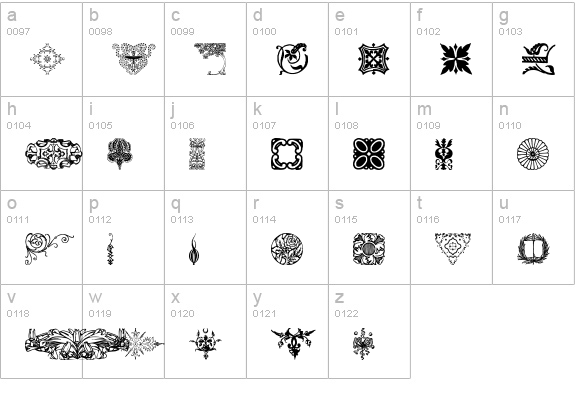
DesignerMotifs Font Details
DesignerMotifs font is a stunning and versatile typeface that is sure to elevate your design projects to new heights. This font features intricate and elegant motifs that add a touch of sophistication to any creative endeavor. With its unique and eye-catching design elements, DesignerMotifs is perfect for branding, advertising, invitations, and more. The best part? DesignerMotifs is available for free download at FontsMarket.com. That's right, you can access this exquisite font at no cost, making it a valuable addition to your font library without breaking the bank. Don't miss out on the opportunity to enhance your designs with the beauty and charm of DesignerMotifs. Download it today and let your creativity shine!